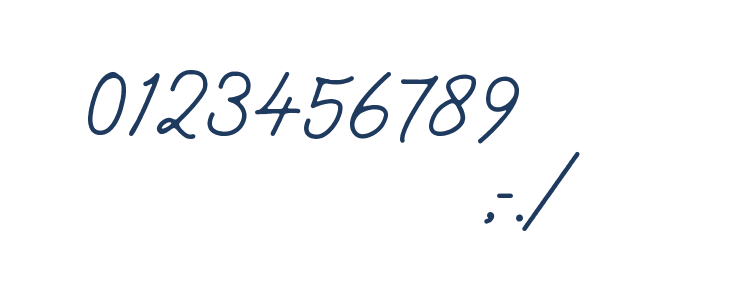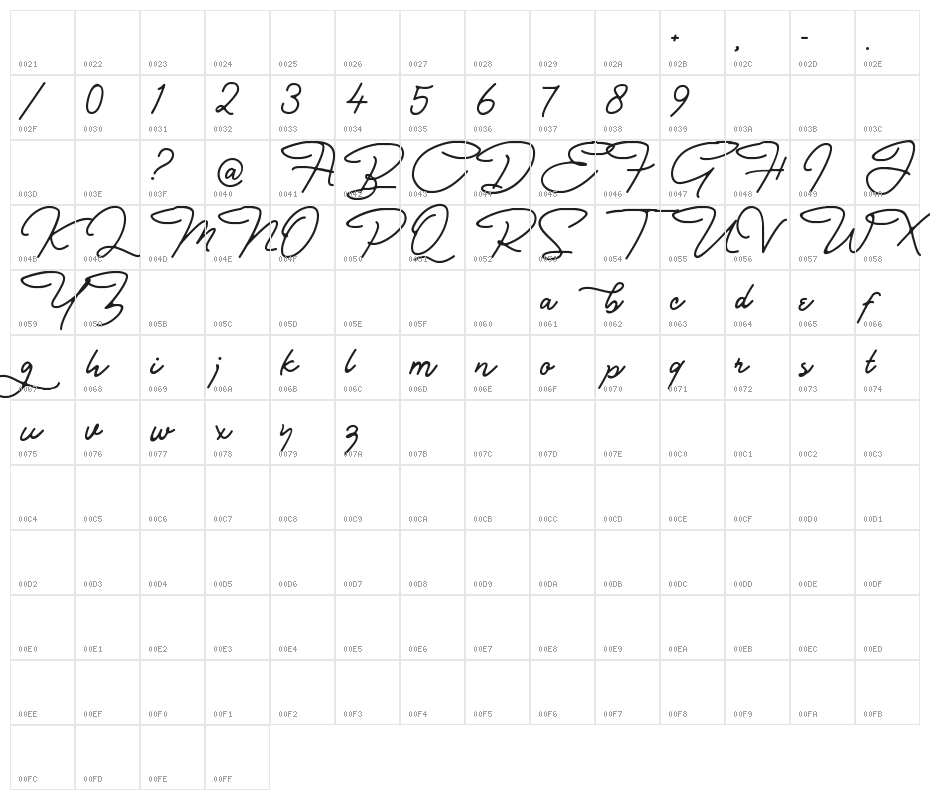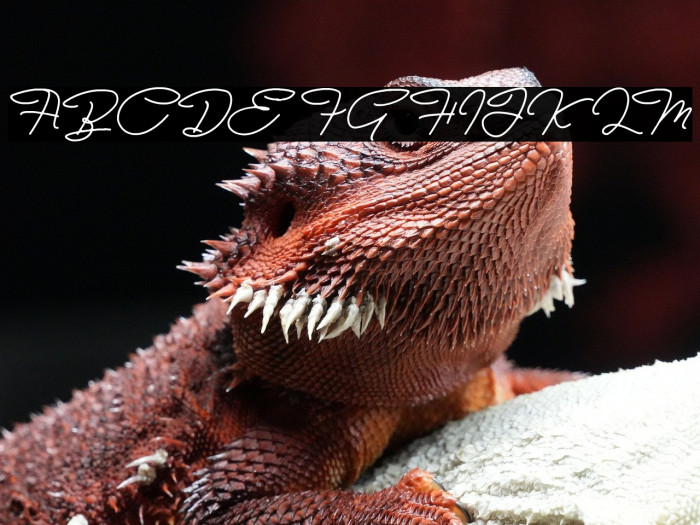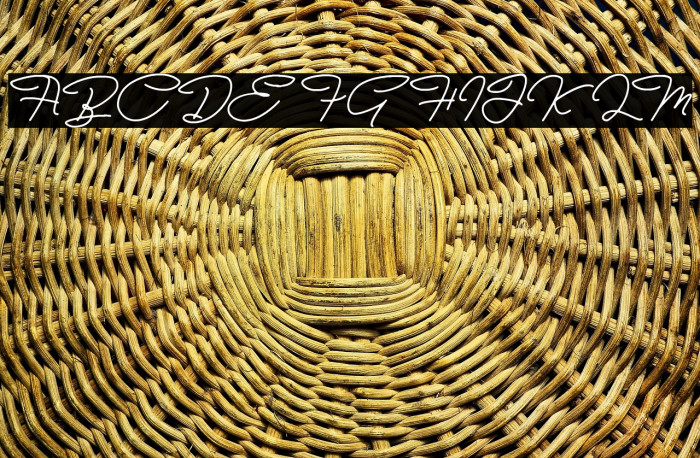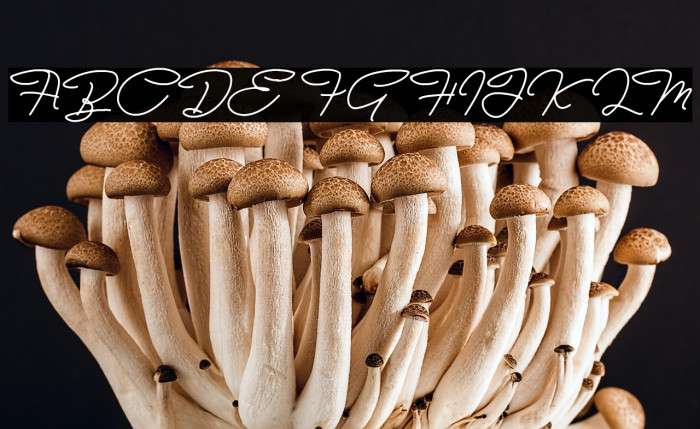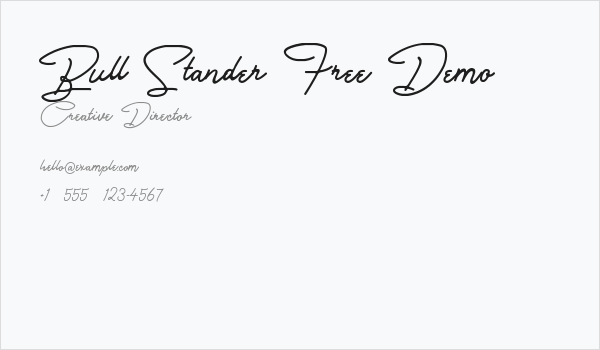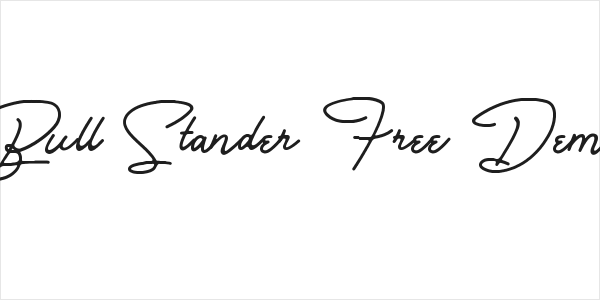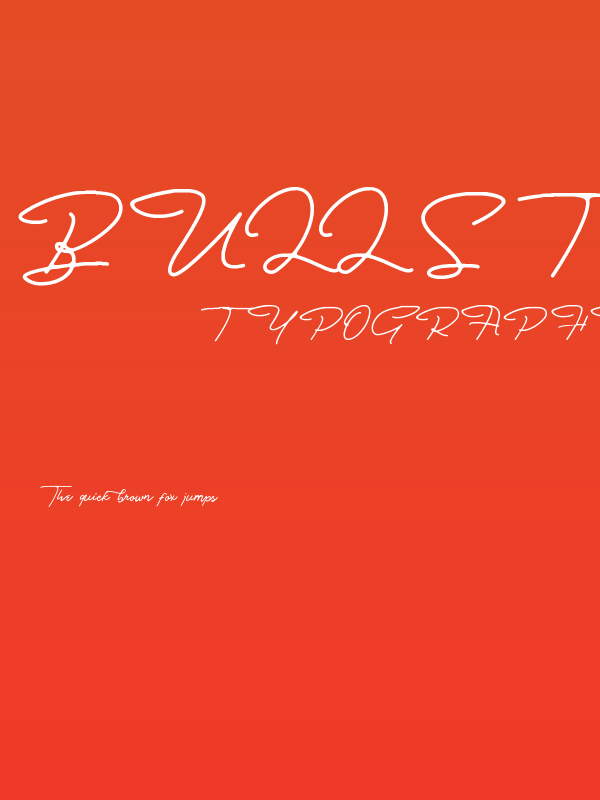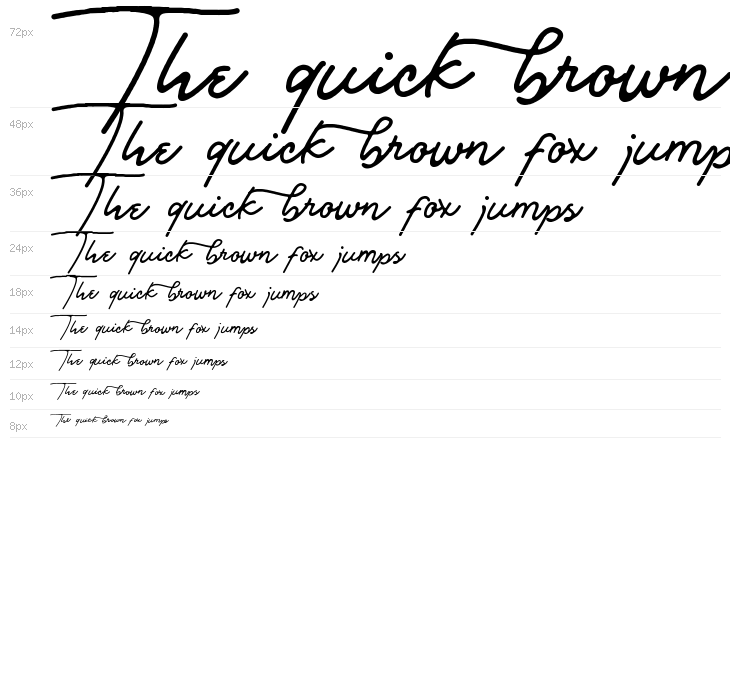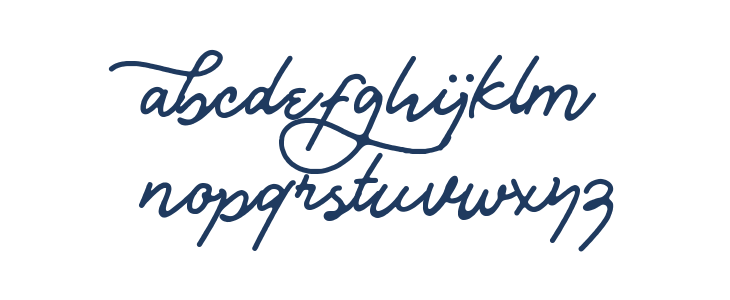
Bull Stander Free Demo Font
Bull Stander Free Demo Description
This font features a stylish, flowing script that exudes elegance and sophistication. The uppercase letters are delicately connected, with graceful curves and loops that give a sense of fluidity. The lowercase letters maintain a consistent stroke width, enhancing readability while retaining a handwritten charm. Numbers are clear and well-proportioned, complementing the overall aesthetic. Special characters are thoughtfully designed to match the script's elegant style, making it suitable for a variety of creative applications.